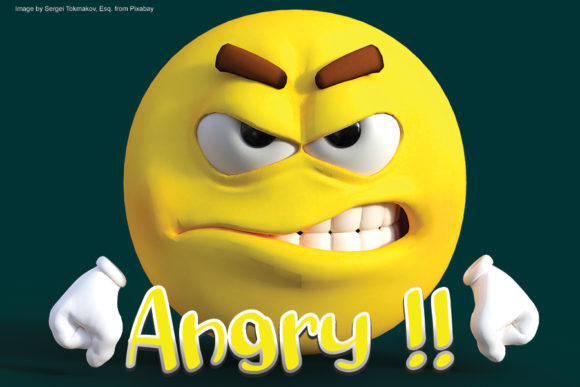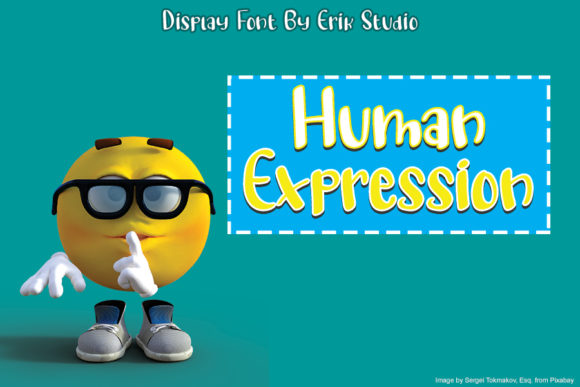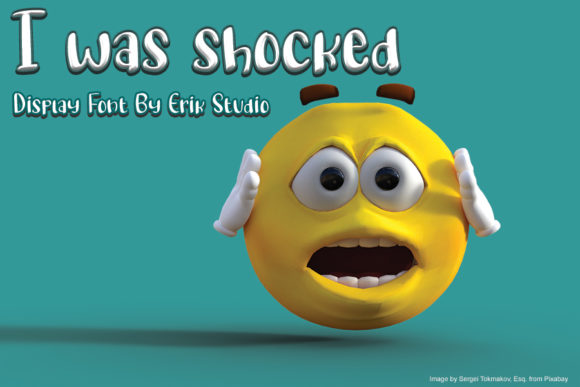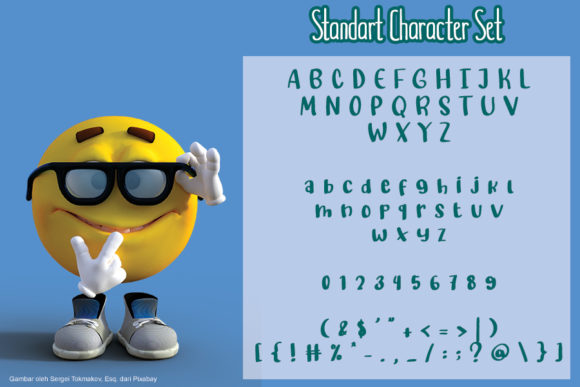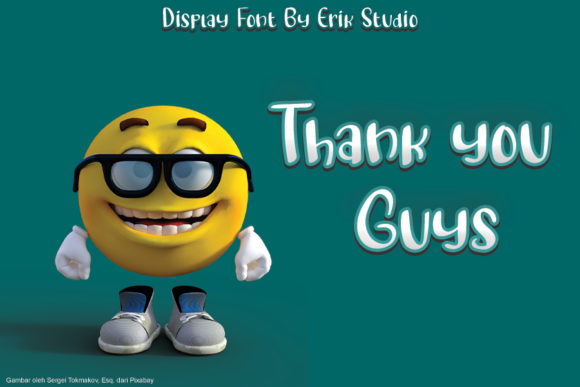
Angry Font
About Angry Font
Angry is a simple, jolly and cute handwritten font. Whether you are using it for cartoon-related designs, children’s games, quotes, titles, brand names, book covers, posters, or just any creation that requires a touch of beauty, this font is a great choice.